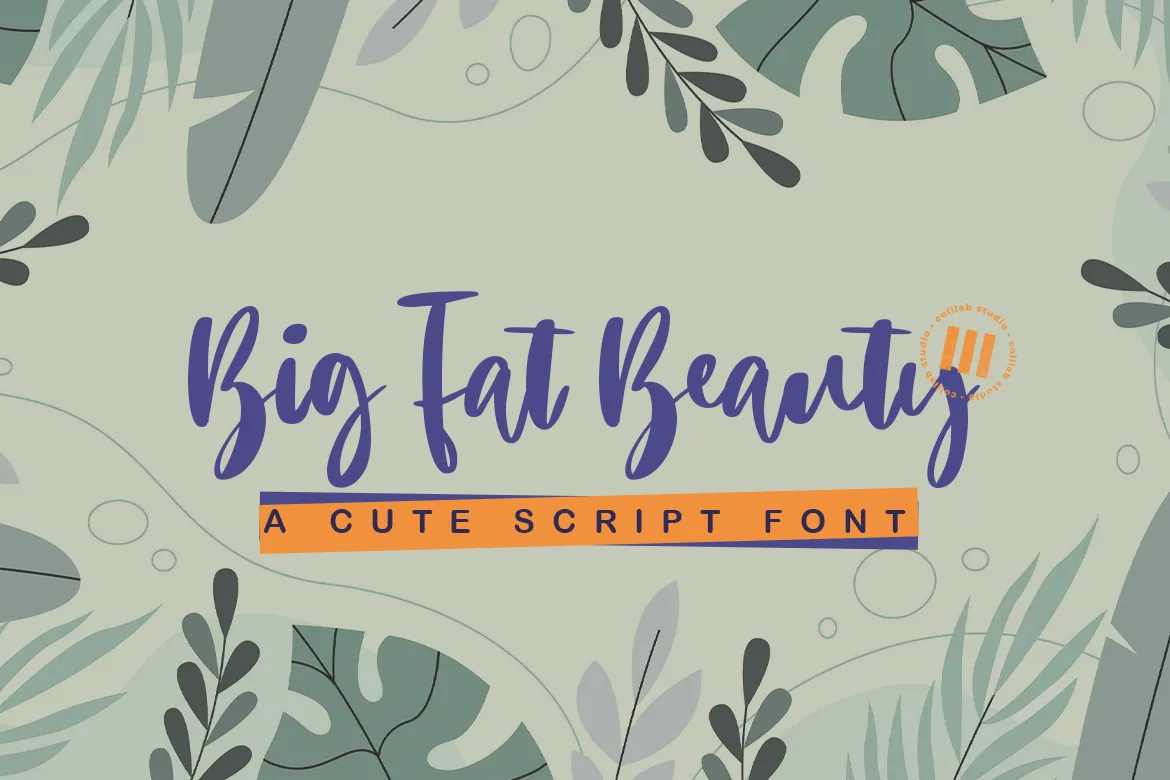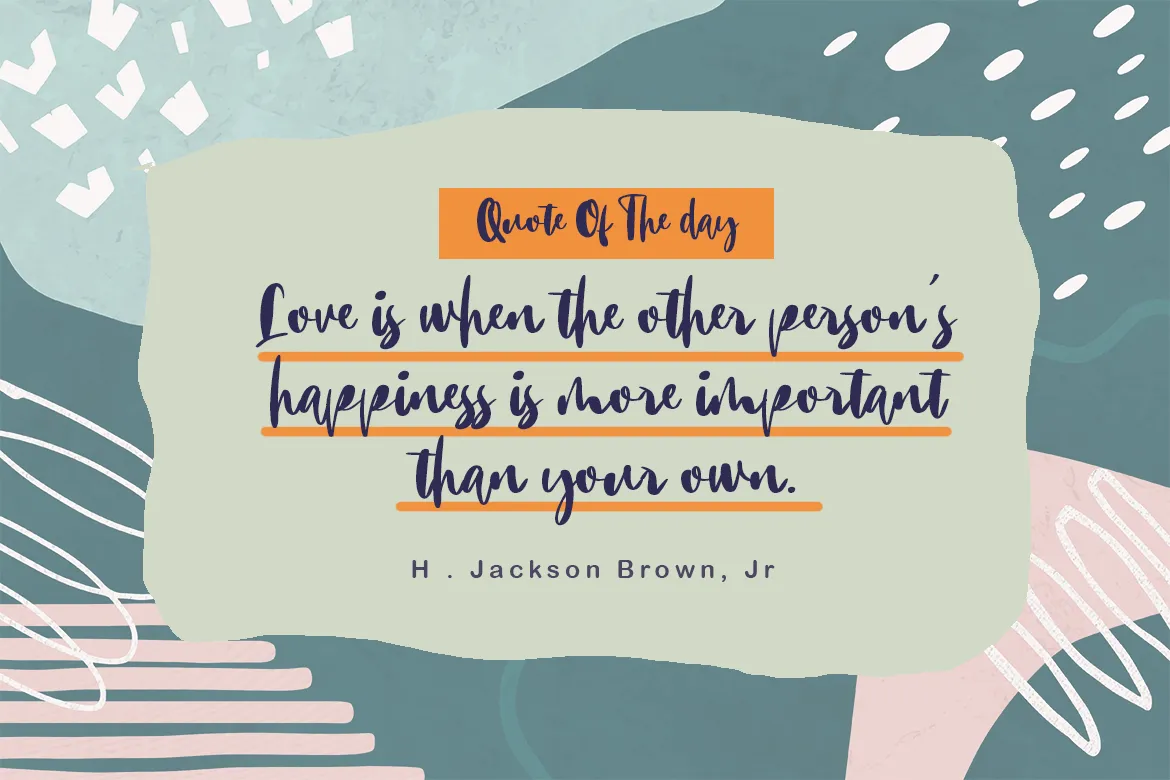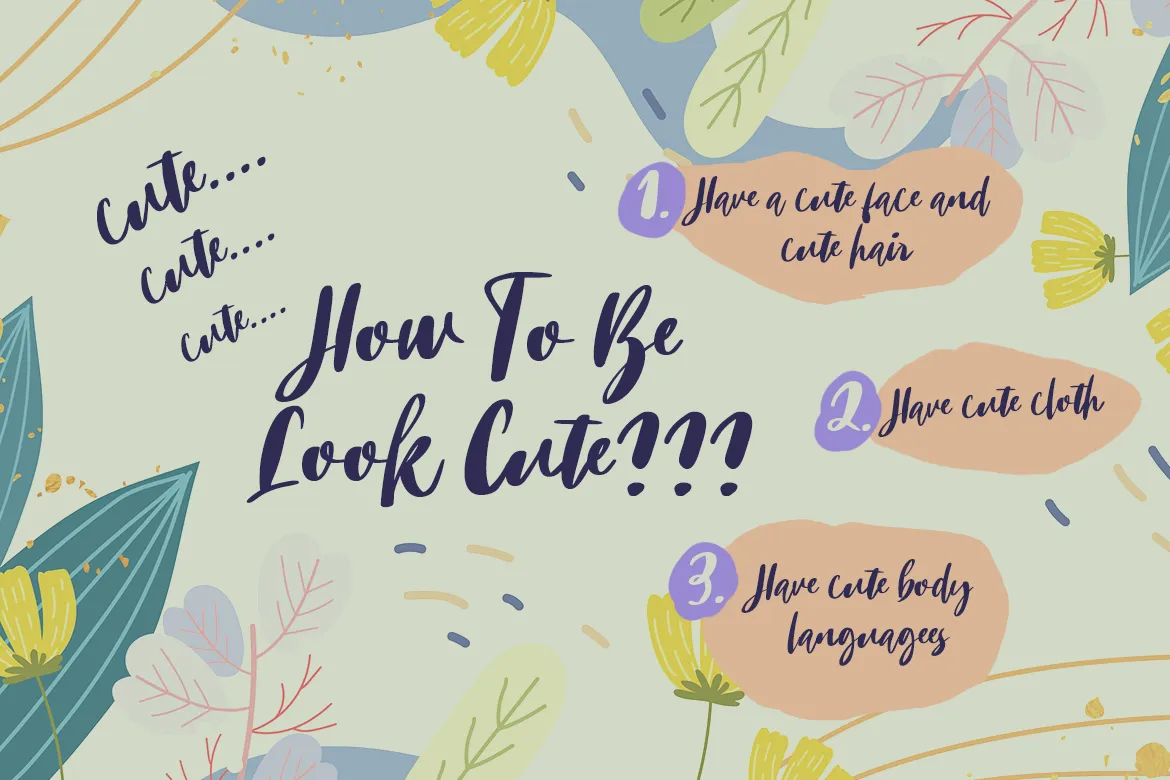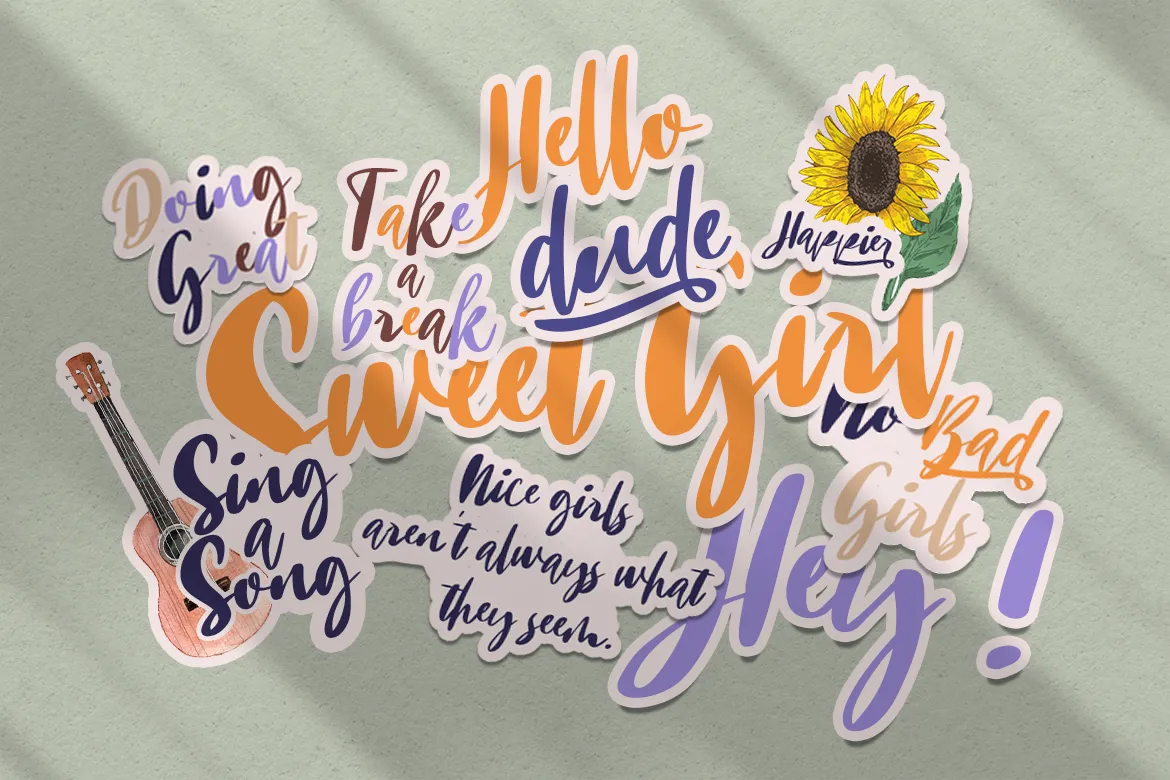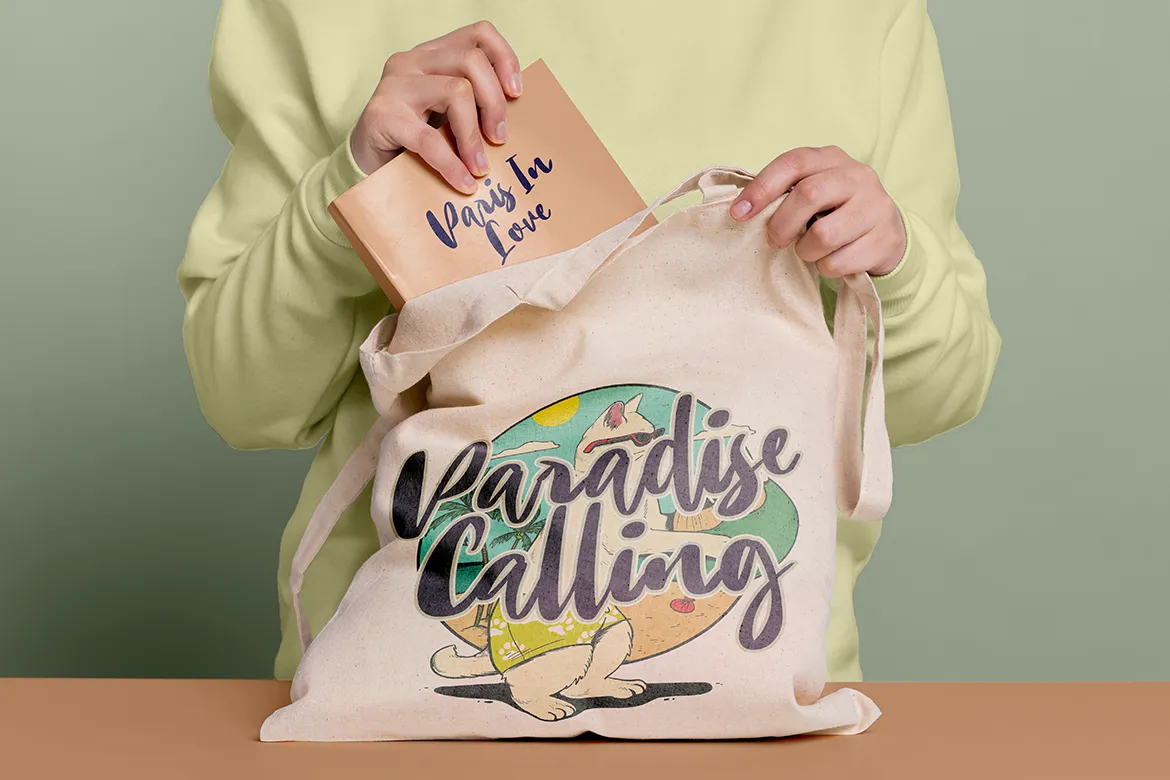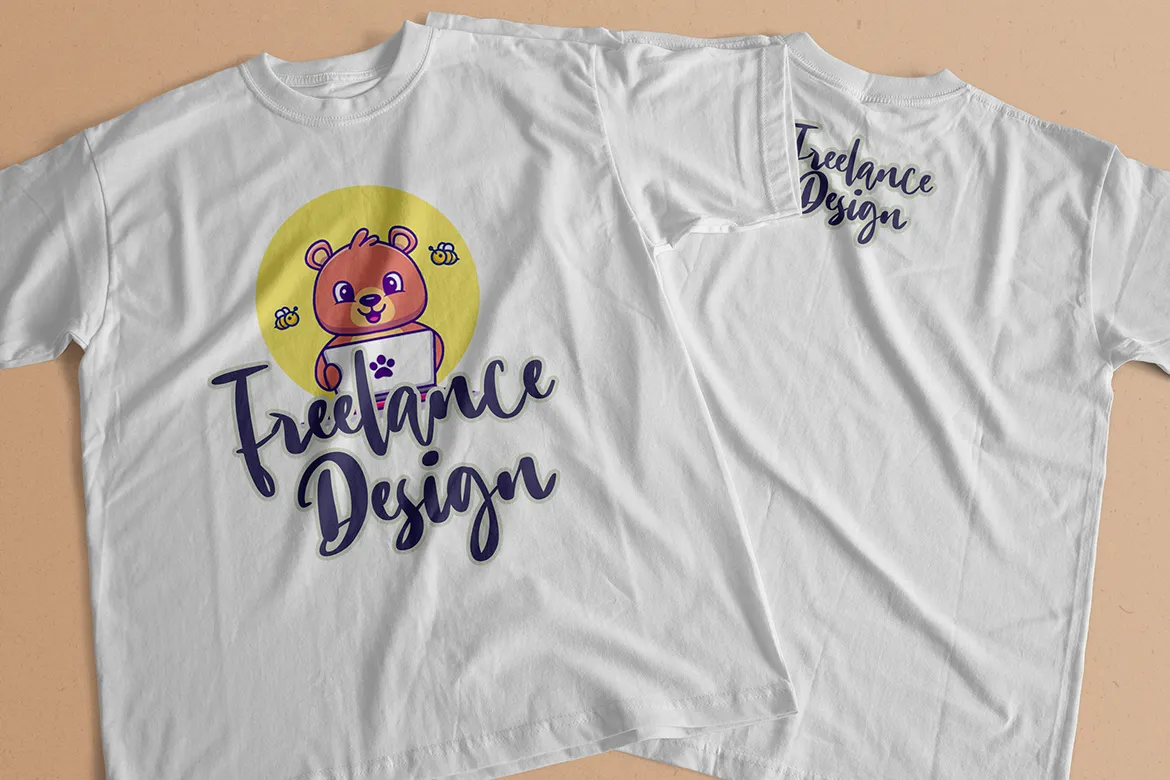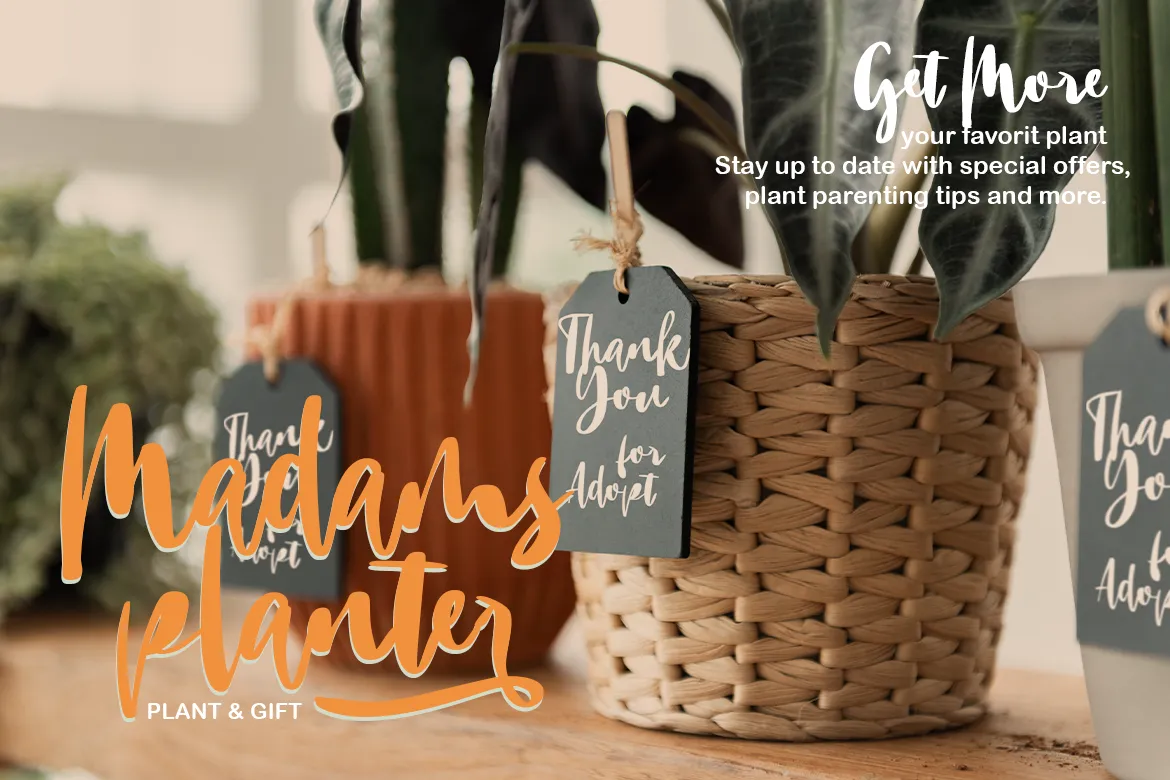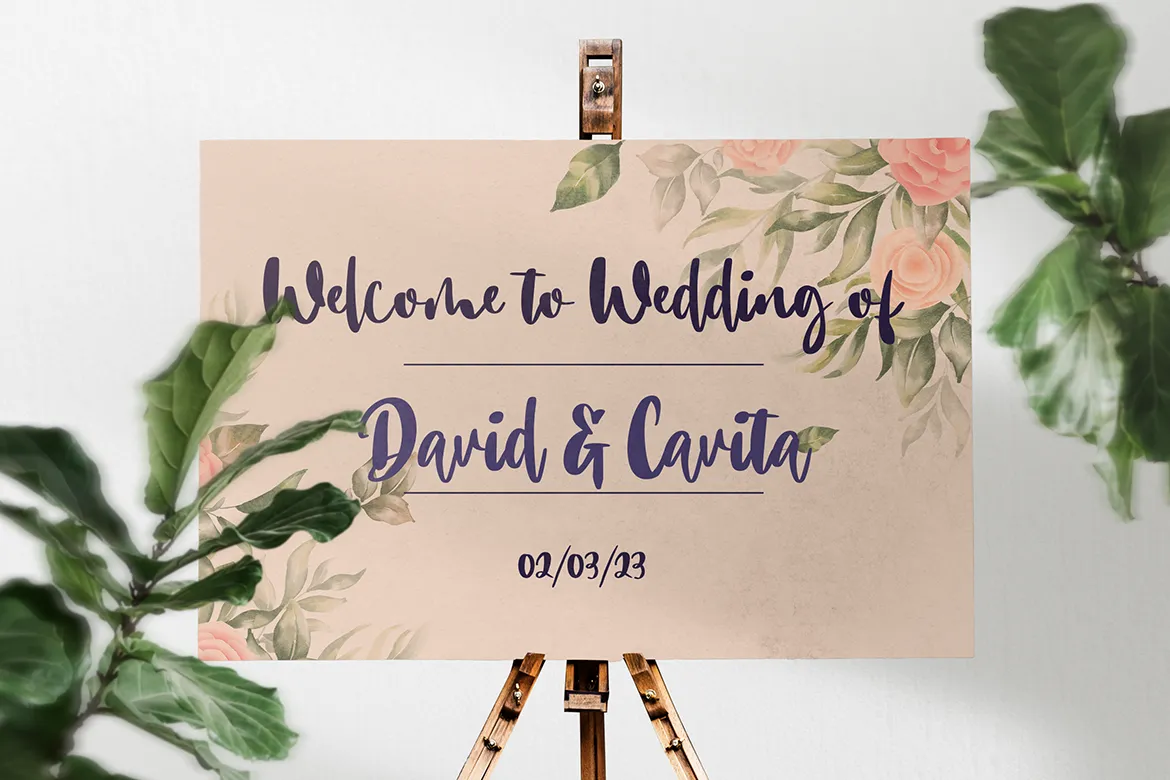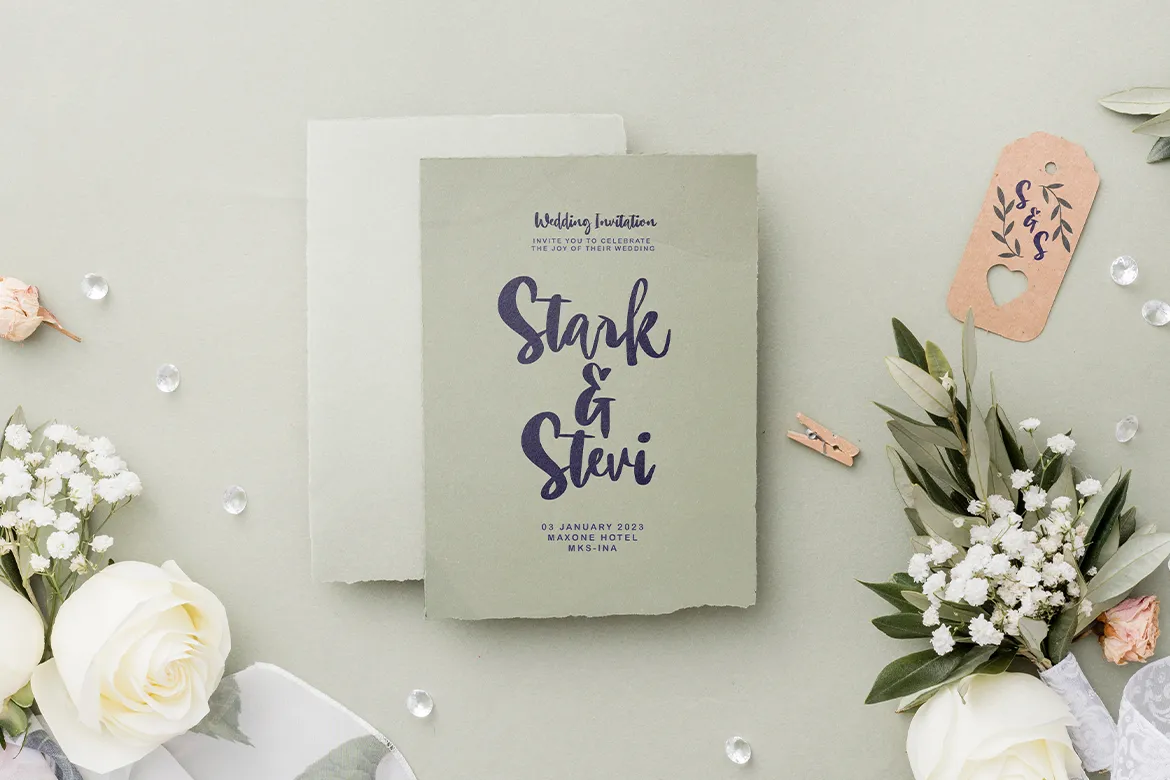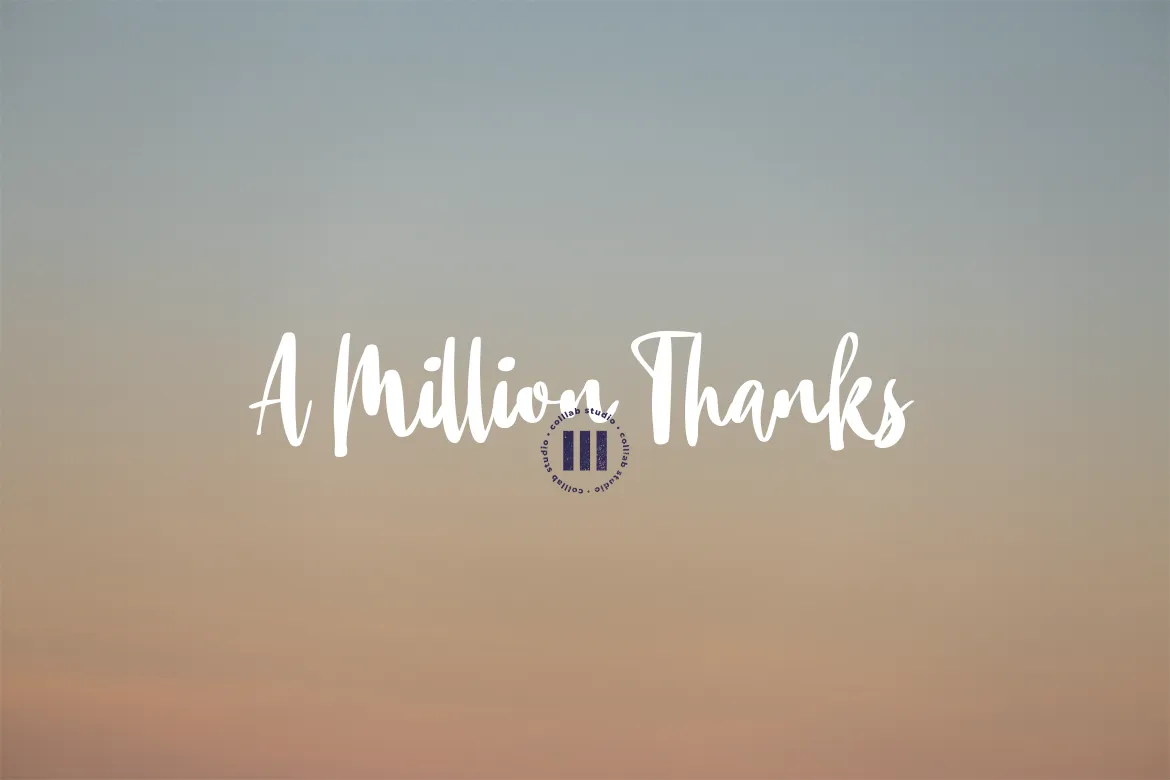
Big Fat Beauty is a new cute script font that is sure to add a lot of sweetness to your designs. This typeface comes with more than 200 characters . It was developed with a beautiful and organic feel, perfect for creating logos and branding materials, invitations and greeting cards, packaging design, product design and so much more!
Big Fat Beauty is a round, curvy script font that’s great for adding some personality to your brands. It comes with both lower and uppercase letters, in case you don’t want all the characters to be all caps.